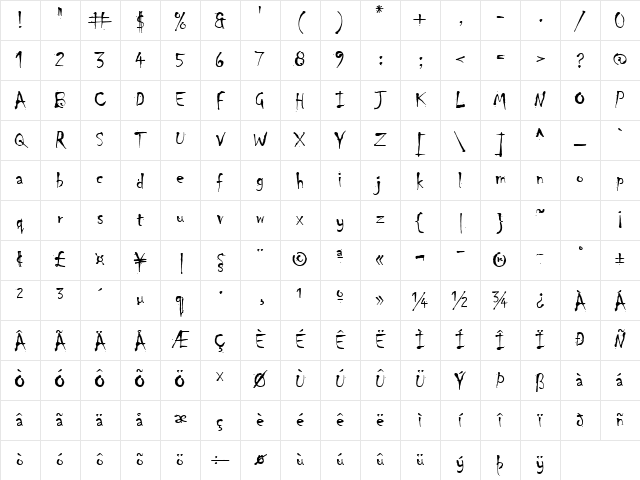
Chiller Regular
Design Context for Chiller
Chiller is a composed and adaptable typeface that performs quietly and consistently across a wide range of design contexts.
Pro Tip: Use Chiller in both headline and body roles to test its range before committing to a single application.